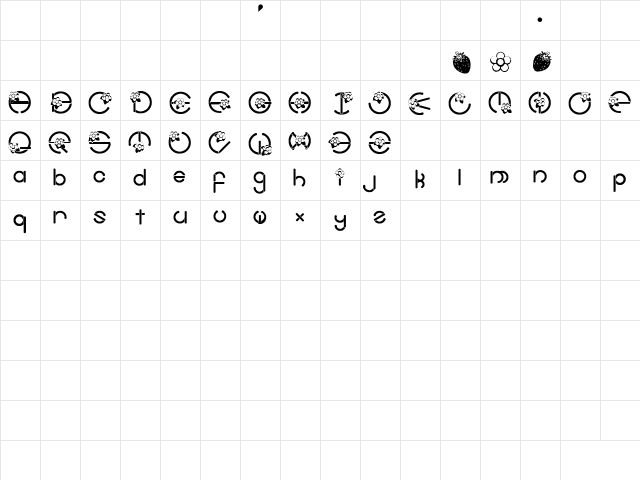
70:<STRAWBERRY> Regular
Design Context for 70:<STRAWBERRY> Typeface
70:<STRAWBERRY> is a composed and adaptable typeface that performs quietly and consistently across a wide range of design contexts. Its slender proportions lend an understated elegance to any composition.